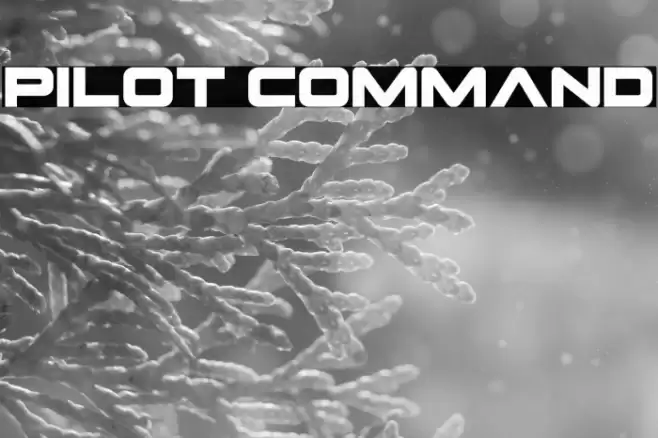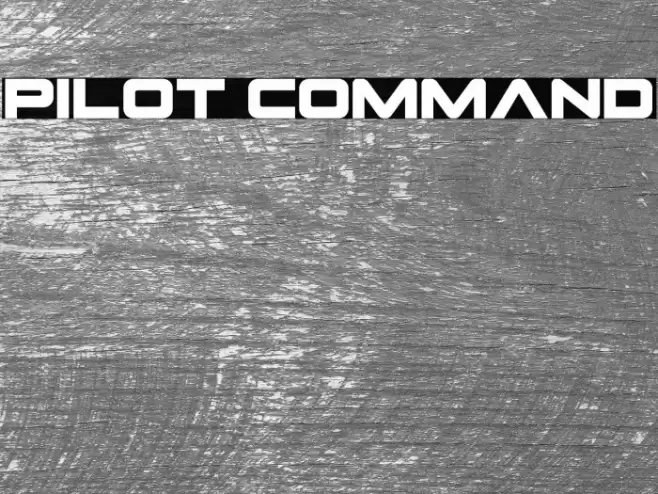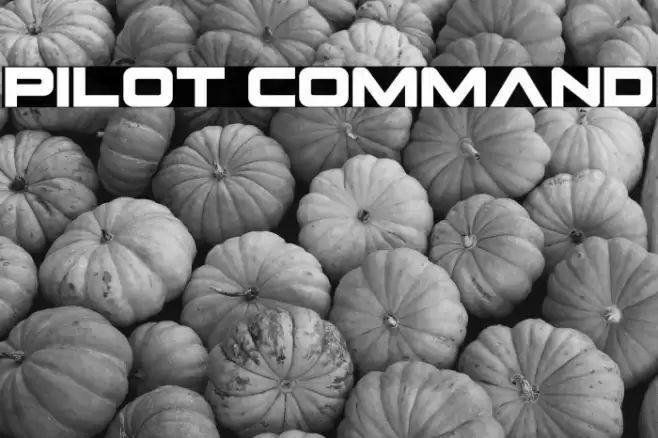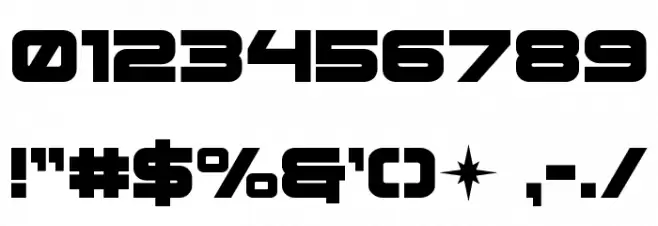
Pilot Command Font
Pilot Command Description
This font features a bold, geometric design with a futuristic and industrial feel. The characters are constructed with sharp angles and straight lines, giving them a strong and assertive appearance. The uppercase letters are uniform in height, while the lowercase letters maintain a consistent style, enhancing readability. The numerals and special characters follow the same design principles, ensuring a cohesive look across all glyphs. The font's solid structure and modern aesthetic make it suitable for projects that require a contemporary and impactful visual presence.
A bold, geometric font with a futuristic and industrial design from Uncategorized fonts.